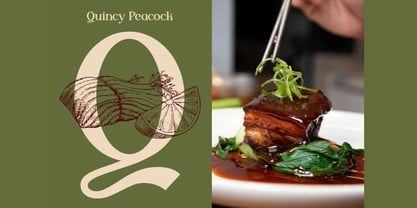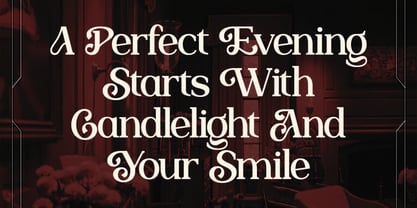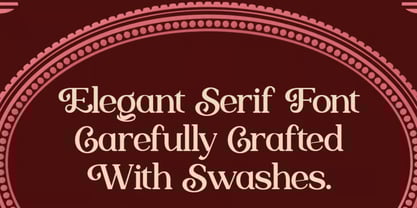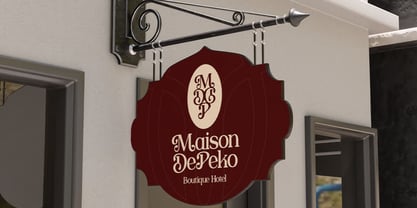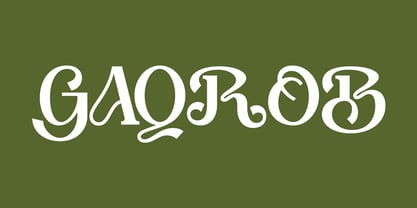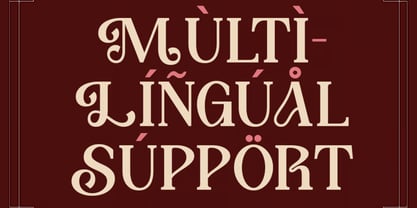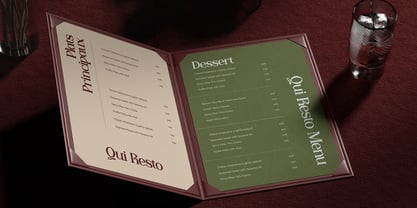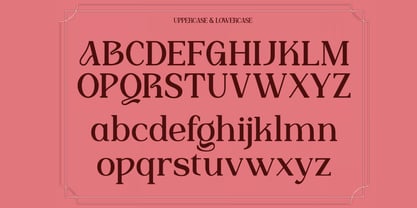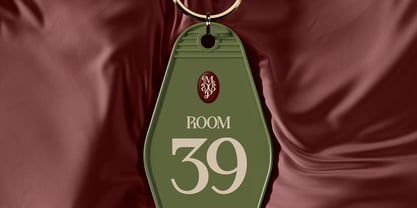
Gaqrob
von Hasnat Studio
Die Schriftfamilie Gaqrob wurde von Hasnat Khan entworfen und von Hasnat Studio veröffentlicht. Gaqrob enthält 1 Stile. Mehr über diese Familie
Gaqrob is an elegant serif display font crafted to blend classic sophistication with modern charm. With its graceful curves, refined swashes, and high-end detailing, Gaqrob brings an unmistakable sense of luxury to every project. This beautifully designed typeface enhances visual storytelling with its timeless beauty—perfect for designers who want to create polished, upscale, and memorable work. Whether you're designing for branding, boutique logos, wedding invitations, fine-dining menus, editorial layouts, product packaging, magazine titles, or premium social media graphics, Gaqrob delivers a rich, distinguished aesthetic that instantly elevates your creative presentation. ✿ Key Features: Elegant Serif Display Style: A harmonious blend of classic sophistication and modern refinement. Graceful Curves & Swashes: Adds luxury, softness, and expressive beauty to typography. Uppercase & Lowercase: Complete set of refined characters for versatile design use. Stylish Alternates: Beautiful alternates and swashes for artistic customization. Numbers, Symbols & Punctuation: Fully equipped for professional, polished layouts. Multilingual Support: Includes accented characters for international projects. High-Quality Letterforms: Clean, smooth outlines for premium-quality results in both print and digital media. ✿ Perfect For: Branding & Logo Design: Ideal for boutique brands, luxury businesses, and high-end identities. Invitations & Stationery: Perfect for weddings, events, and elegant personal designs. Menus & Packaging: Add sophistication to fine dining, beauty, and premium product packaging. Editorial & Magazine Design: Stunning for headlines, titles, and refined page layouts. Social Media & Advertising: Elevate your posts, promos, and ads with timeless elegance. Creative Aesthetic Projects: Quotes, monograms, product labels, and visual storytelling. Transform your designs with Gaqrob—a stunning serif display font that exudes class, elegance, and everlasting beauty.
Designer: Hasnat Khan
Aktuelle Foundry: Hasnat Studio